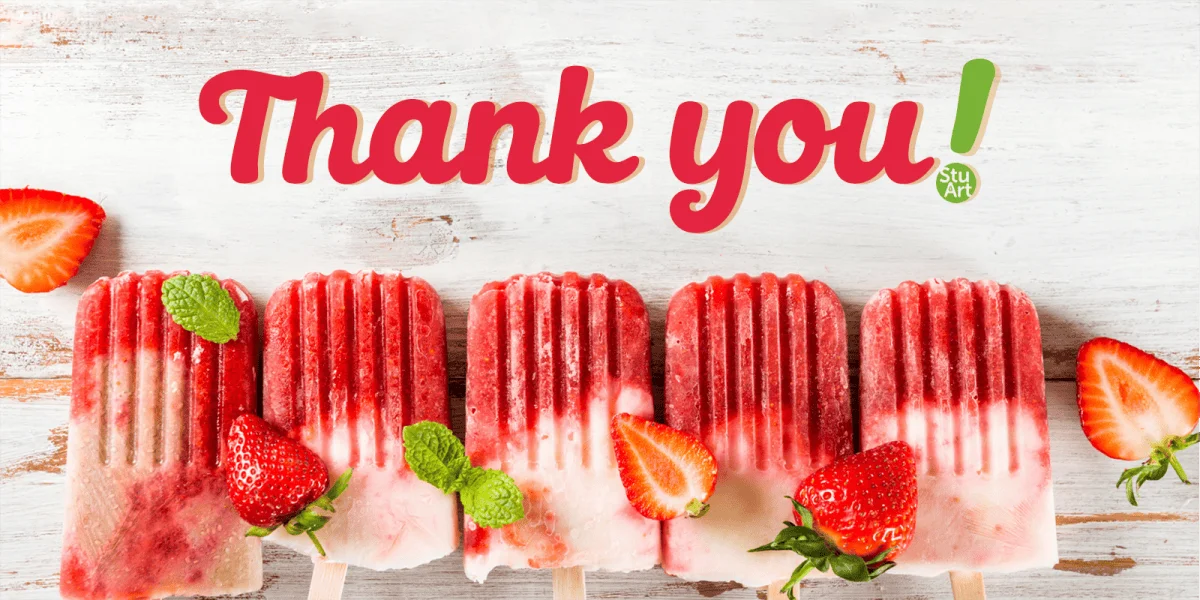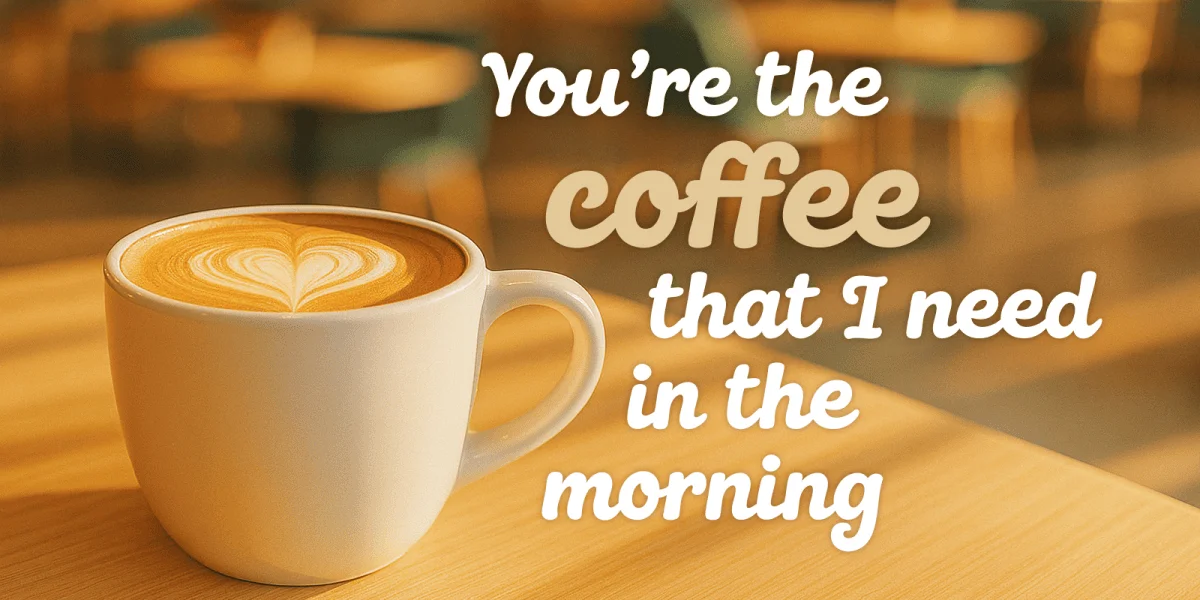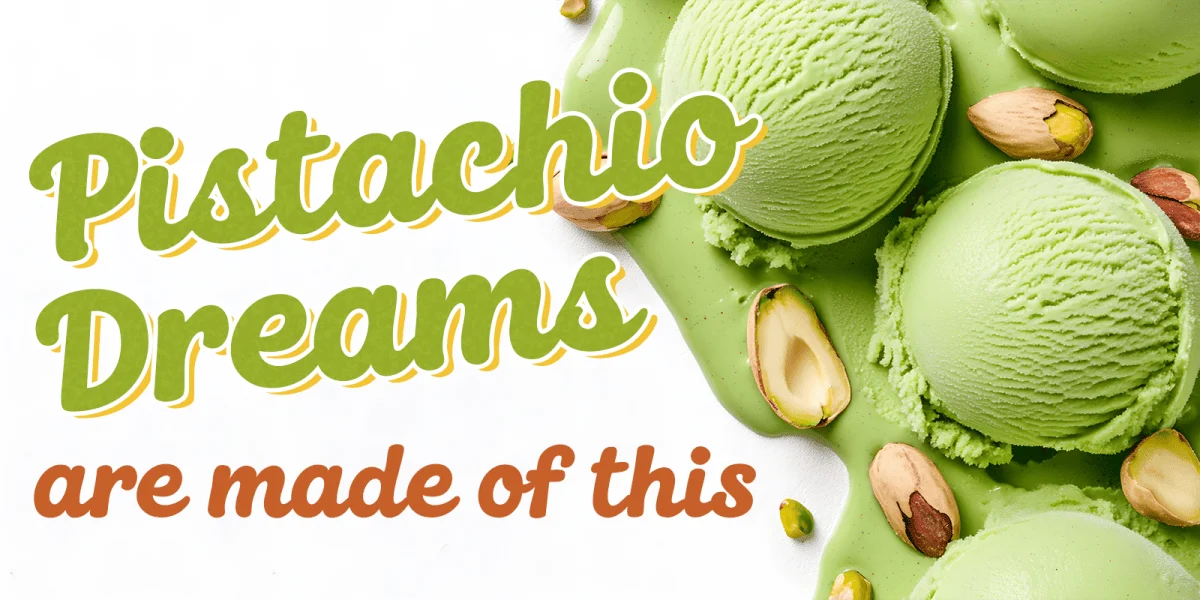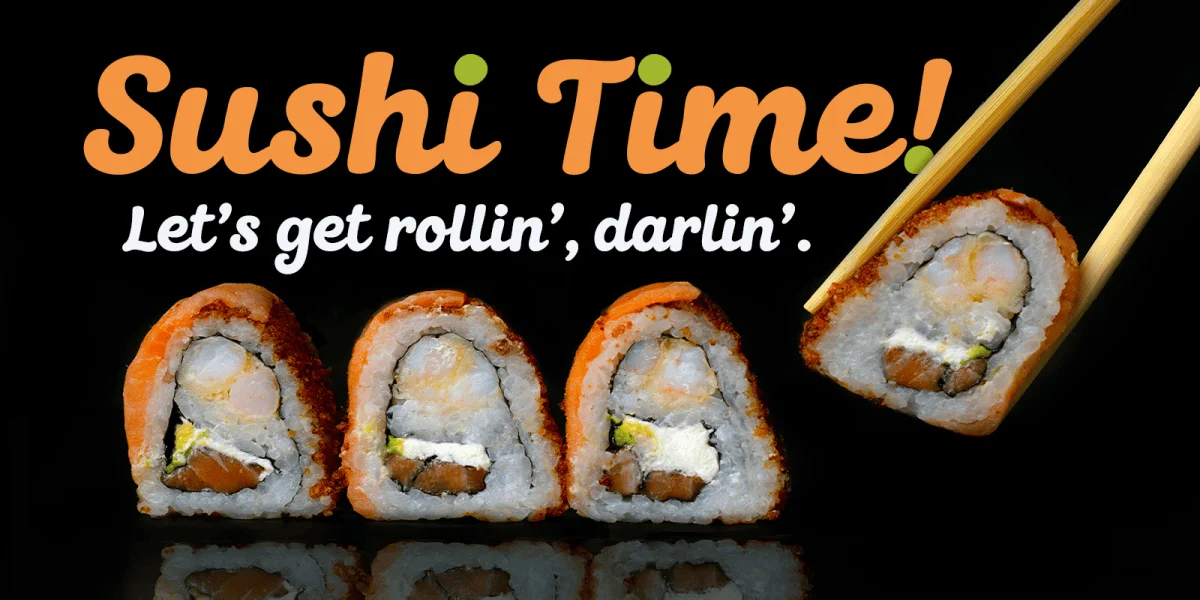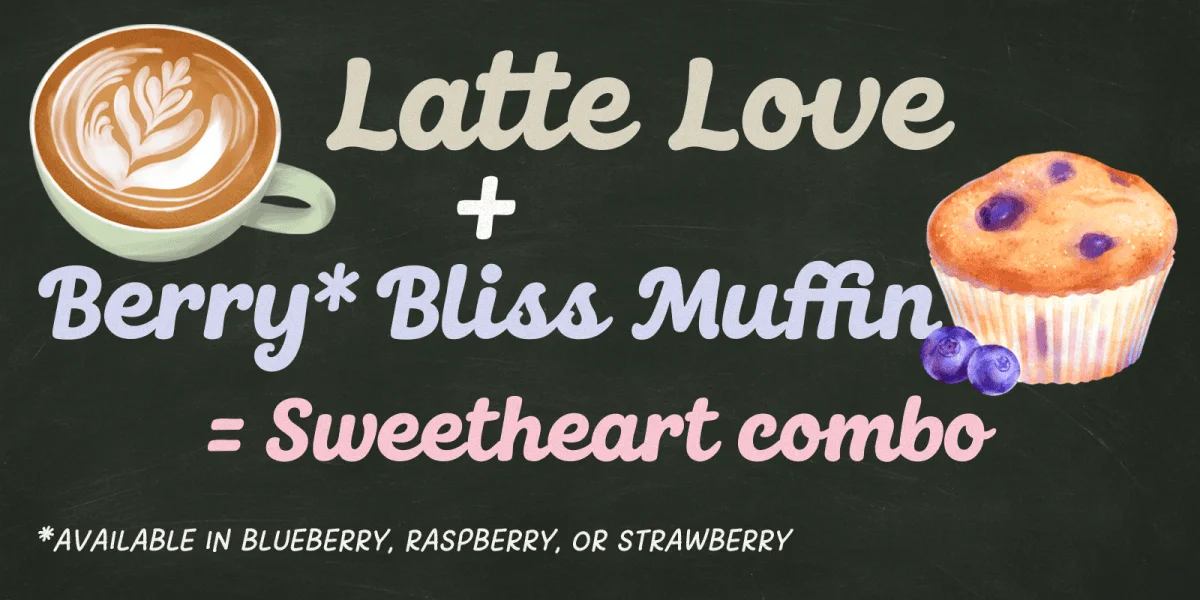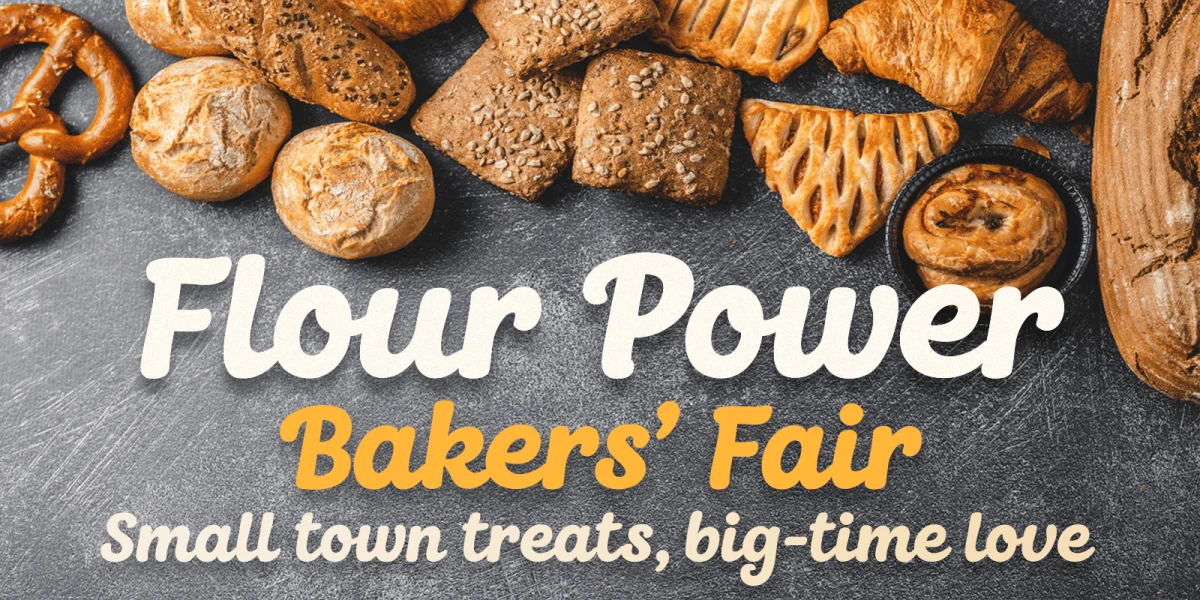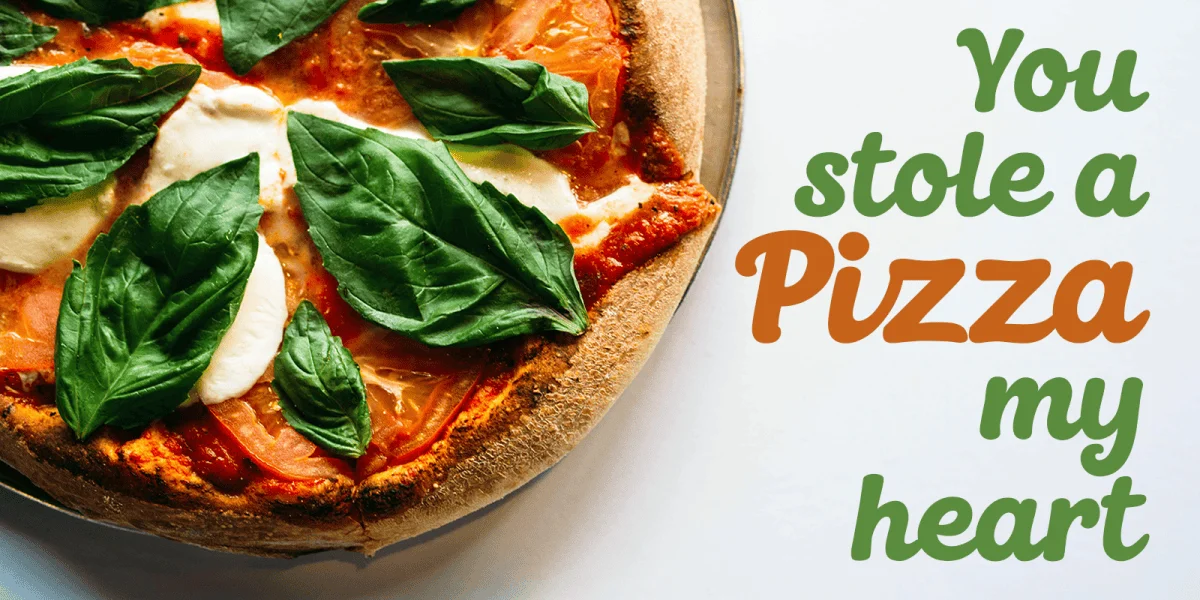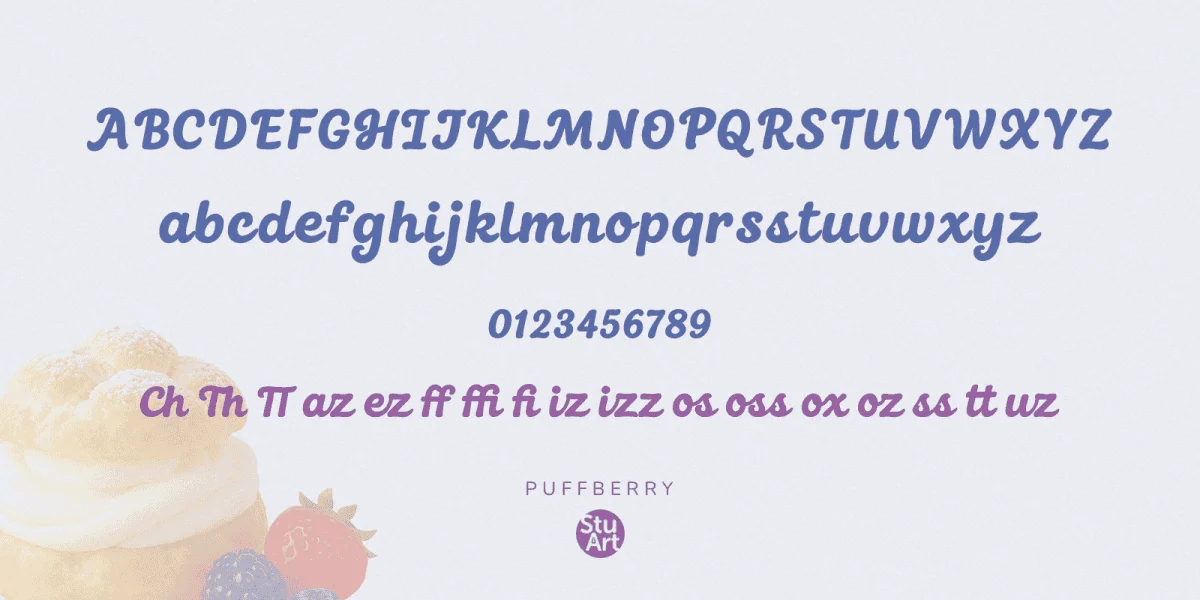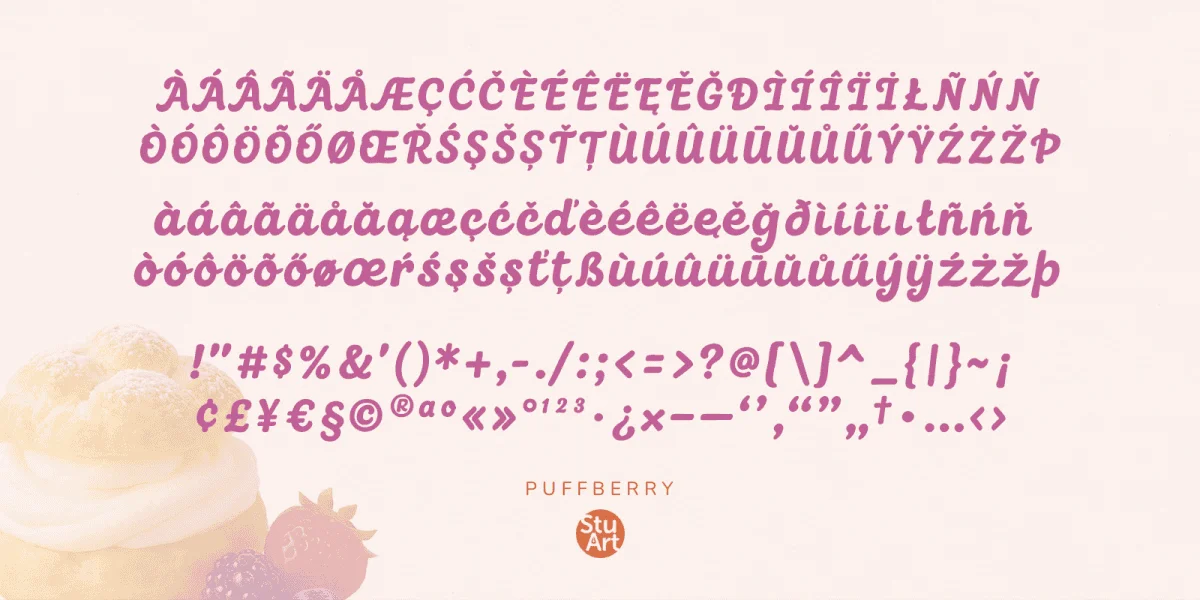
Puffberry is a bold, curvy script font that brings instant joy to every design. With its smooth hand-lettered strokes, playful curves, and natural flow, this font feels like a berry-sweet treat—warm, welcoming, and wonderfully expressive.
Puffberry delivers a perfect blend of fun and polish to logo lettering, packaging, apparel, or social media content.
- Thick, curvy strokes that are bold and eye-catching
- Smooth, rounded script style with a hand-drawn feel
- Built-in ligatures for natural-looking connections
- Includes multilingual support for global charm
- Adds personality and warmth to any text
- Branding, packaging, and product labels
- Merch designs like t-shirts, mugs, tote bags
- Social media graphics and content creation
- Quotes, headers, and statement pieces
- Stickers, planners, and journaling goodies
- Greeting cards, invitations, and fun printables
Puffberry isn’t just a script font—it’s your secret ingredient for joy-filled design.